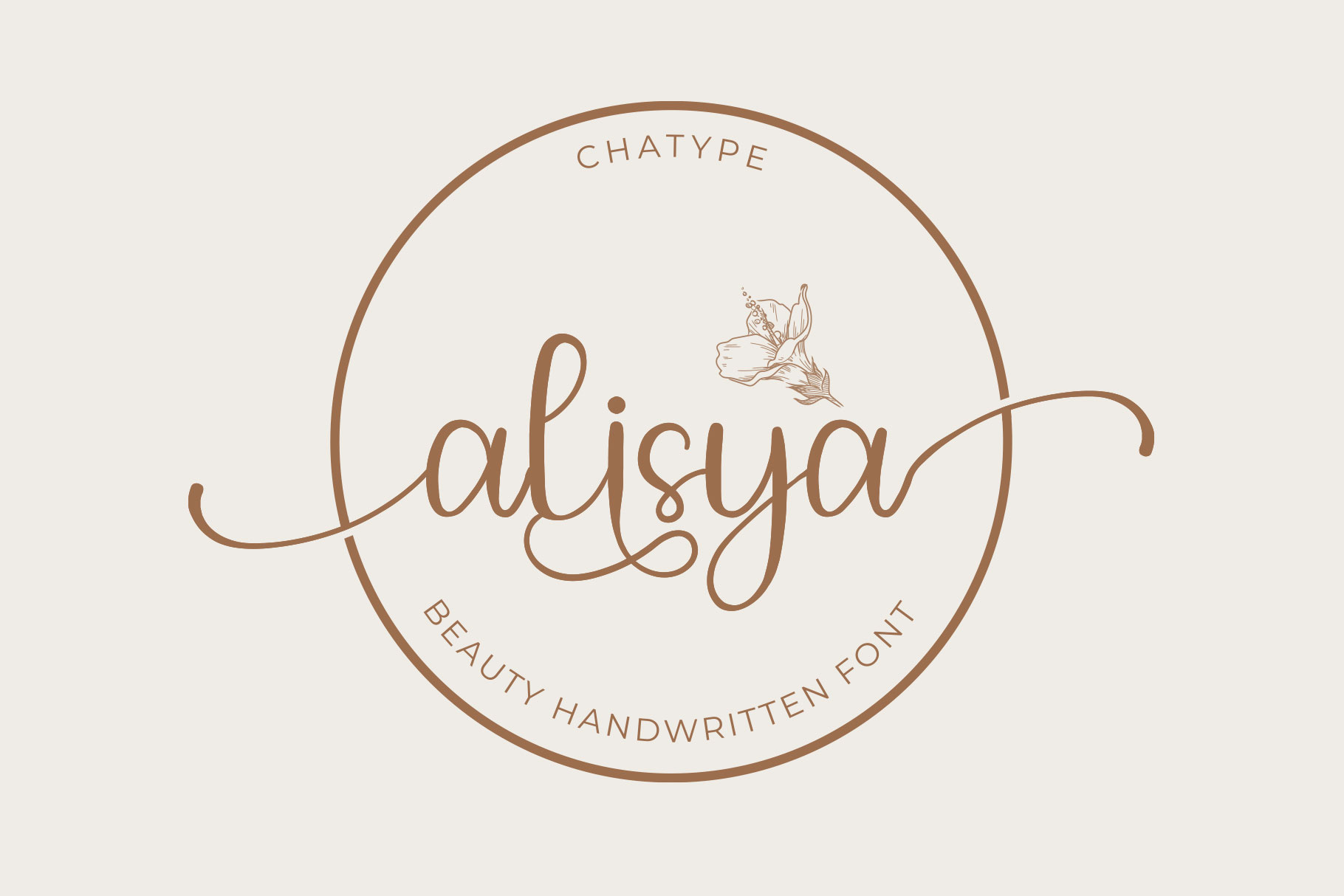
alisya font with new style, this font will perfect for many different project ex: quotes, logo, blog header, poster, banding, letter, invitation, stationery, etc.